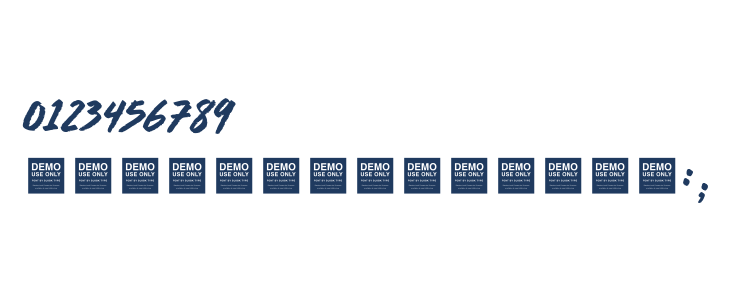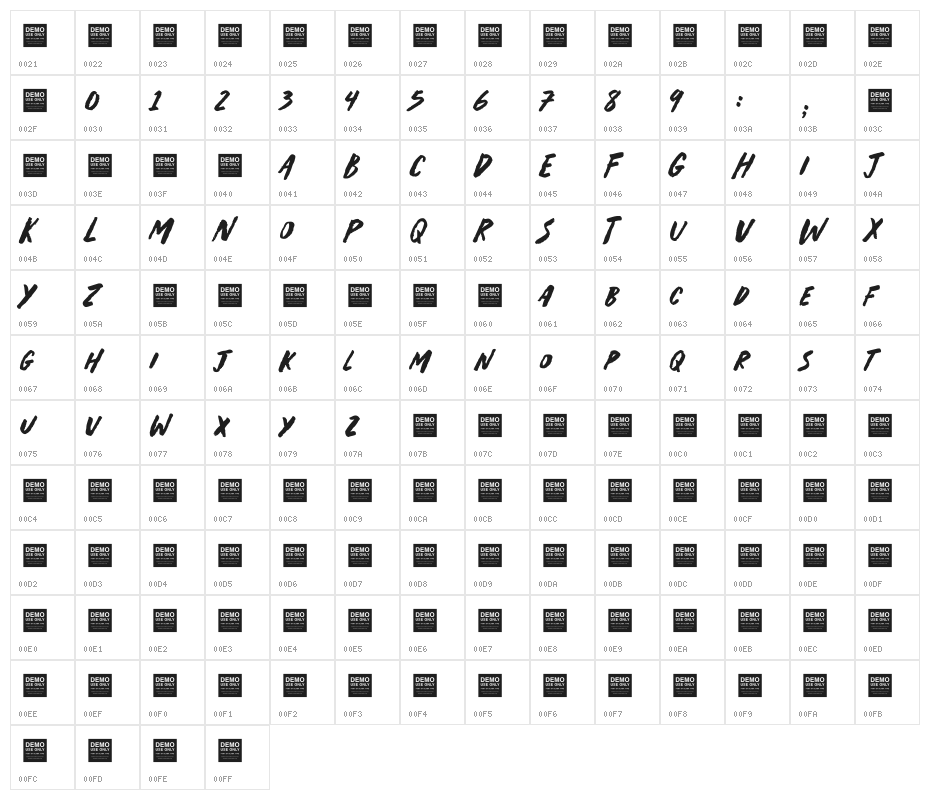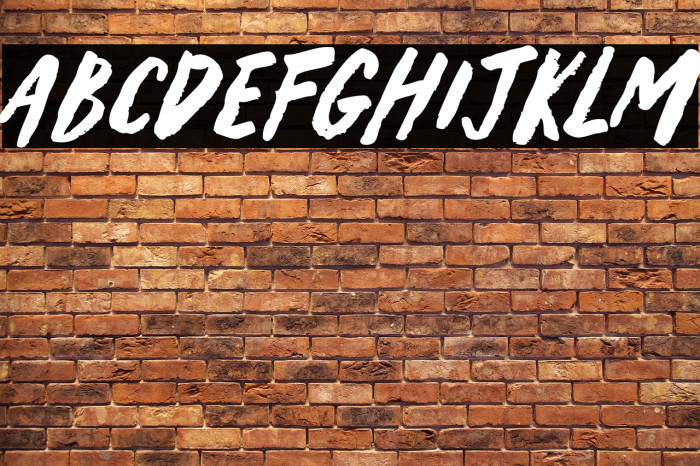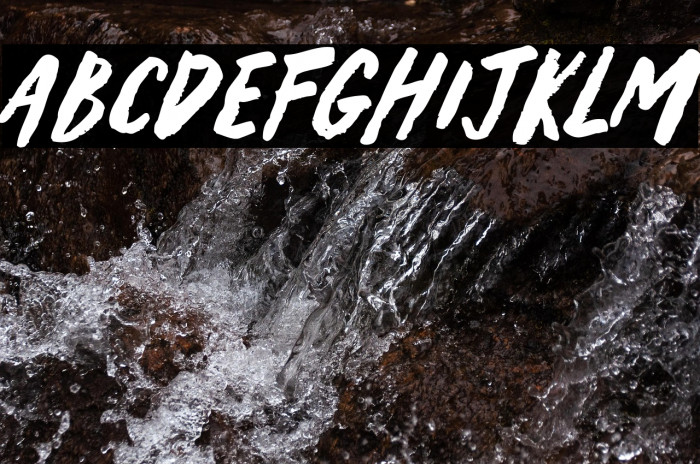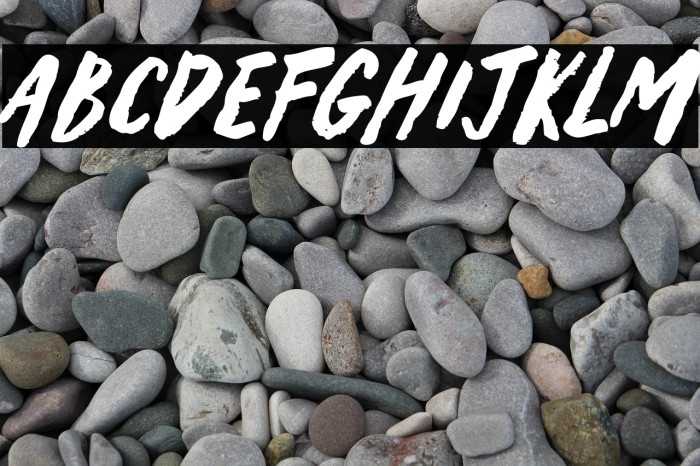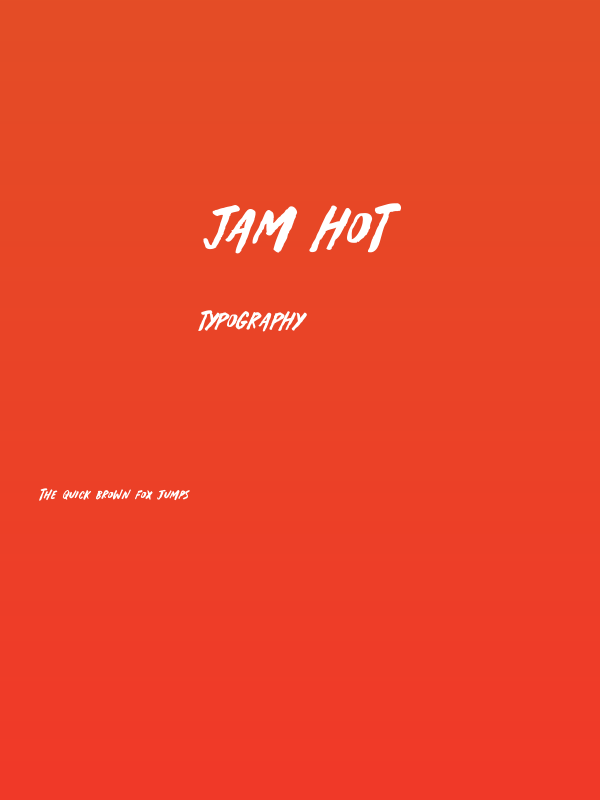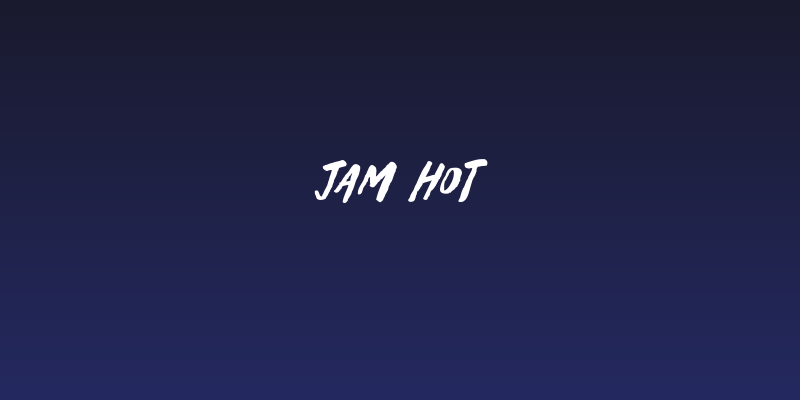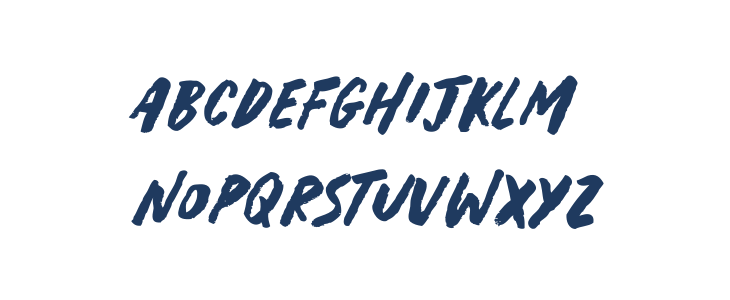
Jam Hot Font
Jam Hot Description
This font features a bold and expressive brush script style, characterized by its dynamic and energetic strokes. The letters have a hand-painted appearance, with irregular edges and varying thickness that add a sense of movement and spontaneity. The uppercase and lowercase letters maintain a consistent flow, while the numerals and special characters complement the overall aesthetic. This font's bold presence makes it suitable for eye-catching designs that require a personal and artistic touch.